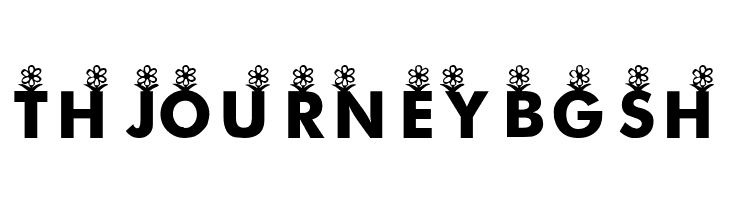
A bold, decorative font with floral accents above each letter.
A decorative font with letters integrated into camera icons, perfect for photography-themed projects.
A playful, mushroom-themed decorative font with a retro vibe.
A playful font with bold letters inside cartoon ghost characters.
A decorative script font with shooting star embellishments.
A playful, hand-drawn font with quirky, irregular letterforms.
A decorative dingbat font with detailed sea and beach illustrations.
A playful font with characters inside birthday cakes, perfect for festive occasions.
A playful, childlike handwritten font with irregular, rounded characters.
A playful font with characters inside football shapes, supported by cartoon hands.
Recent favorites include KR First Bloom, KR Camera Fun, KR Shroom, KR Ghostly Message and KR Shooting Star [Left]. They balance clarity and personality, working well for tech brands, editorial layouts, and social visuals.